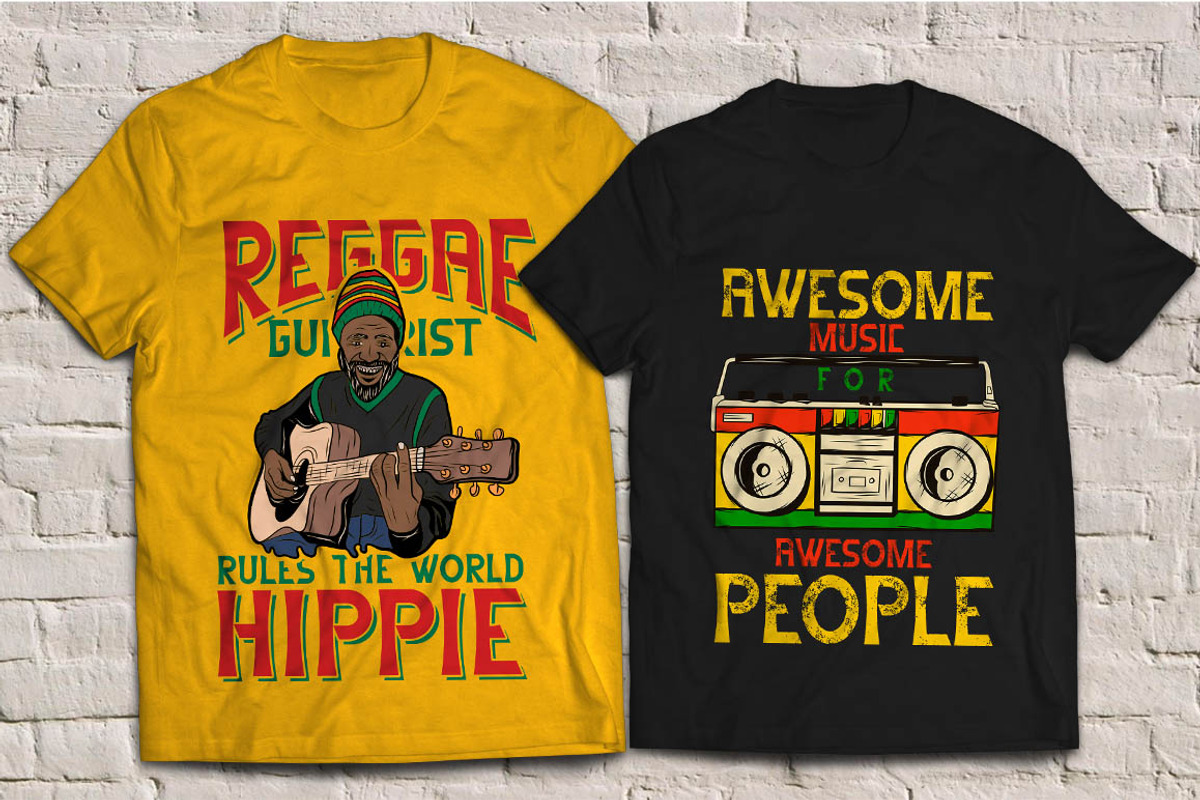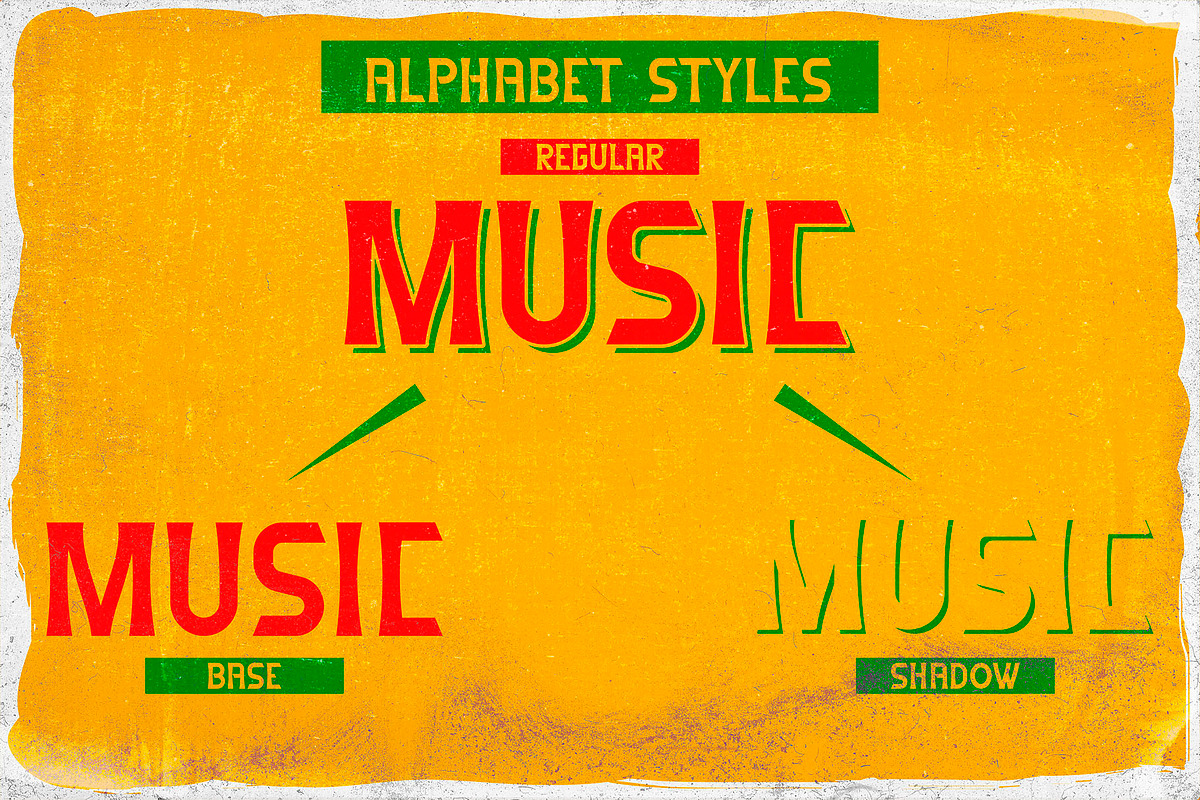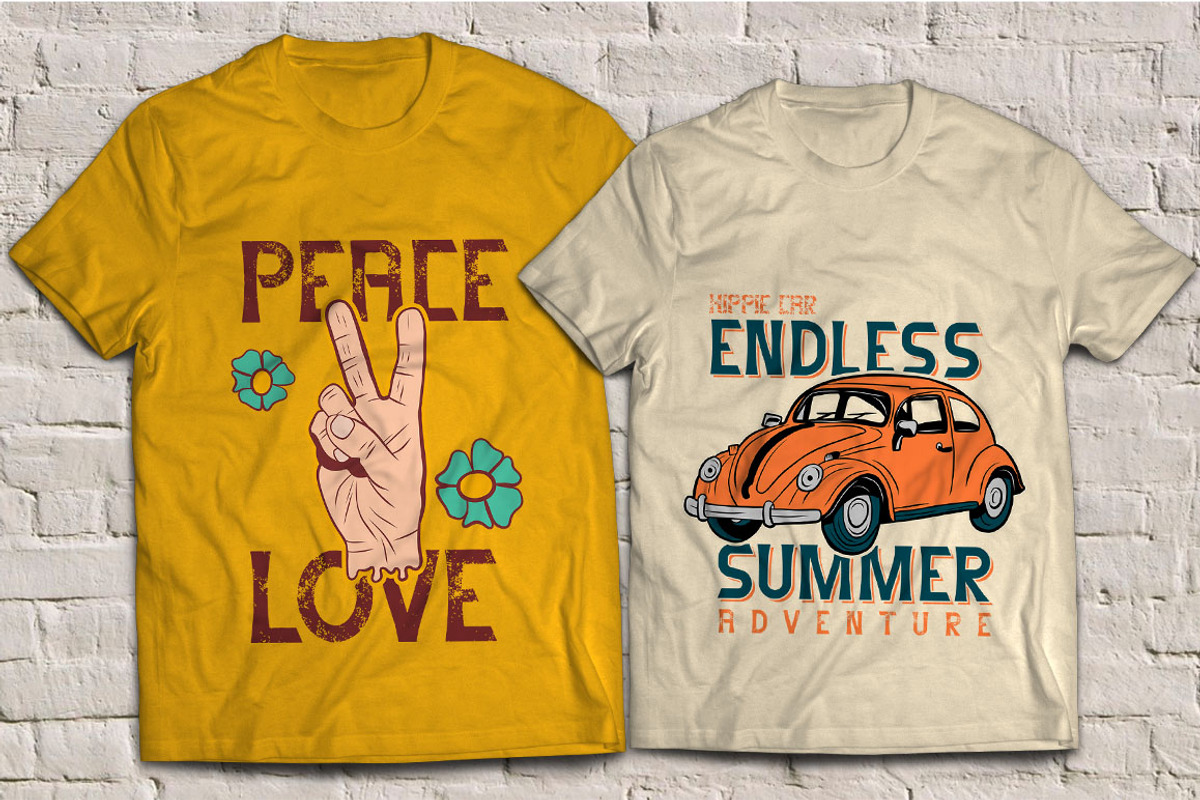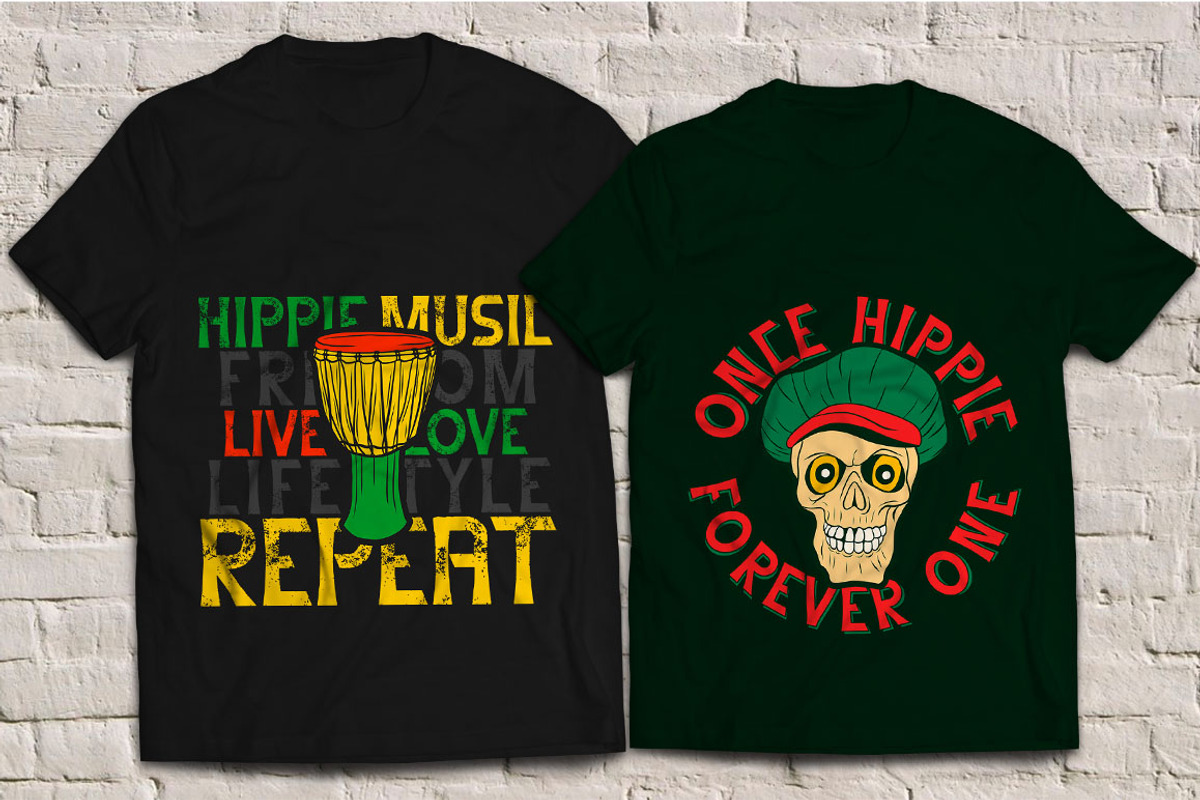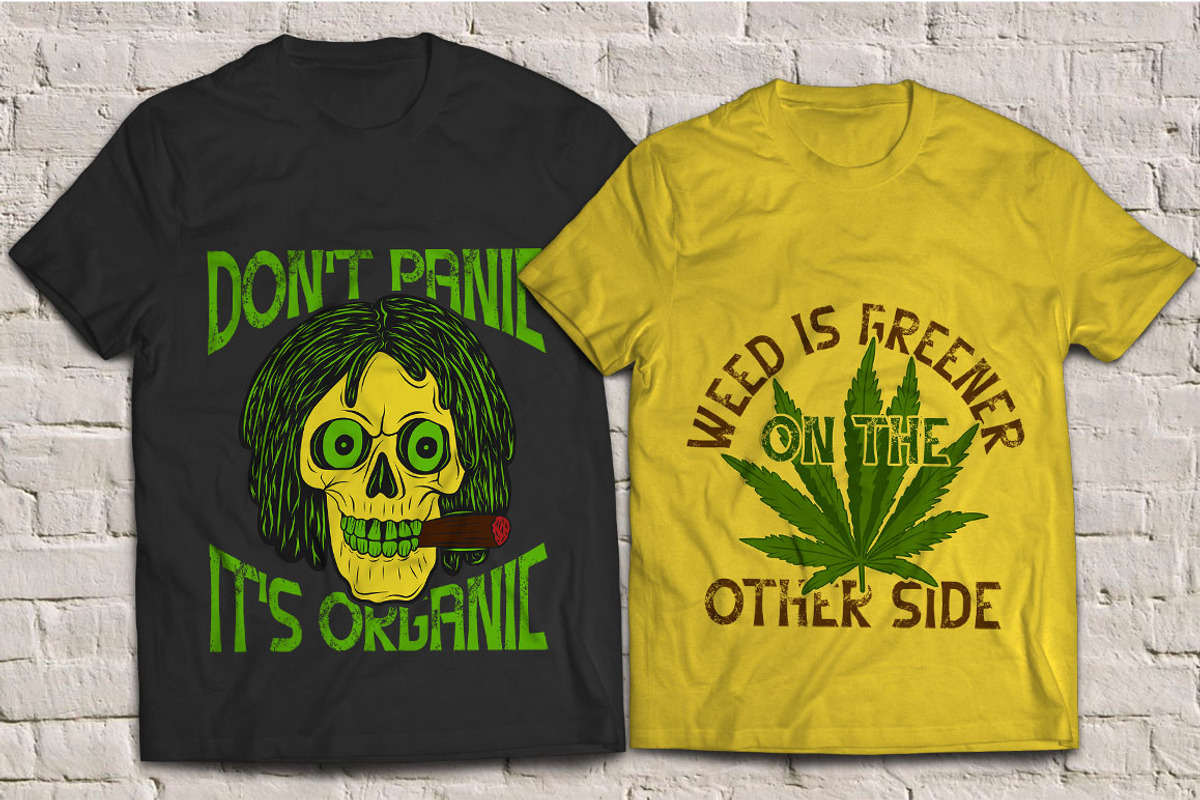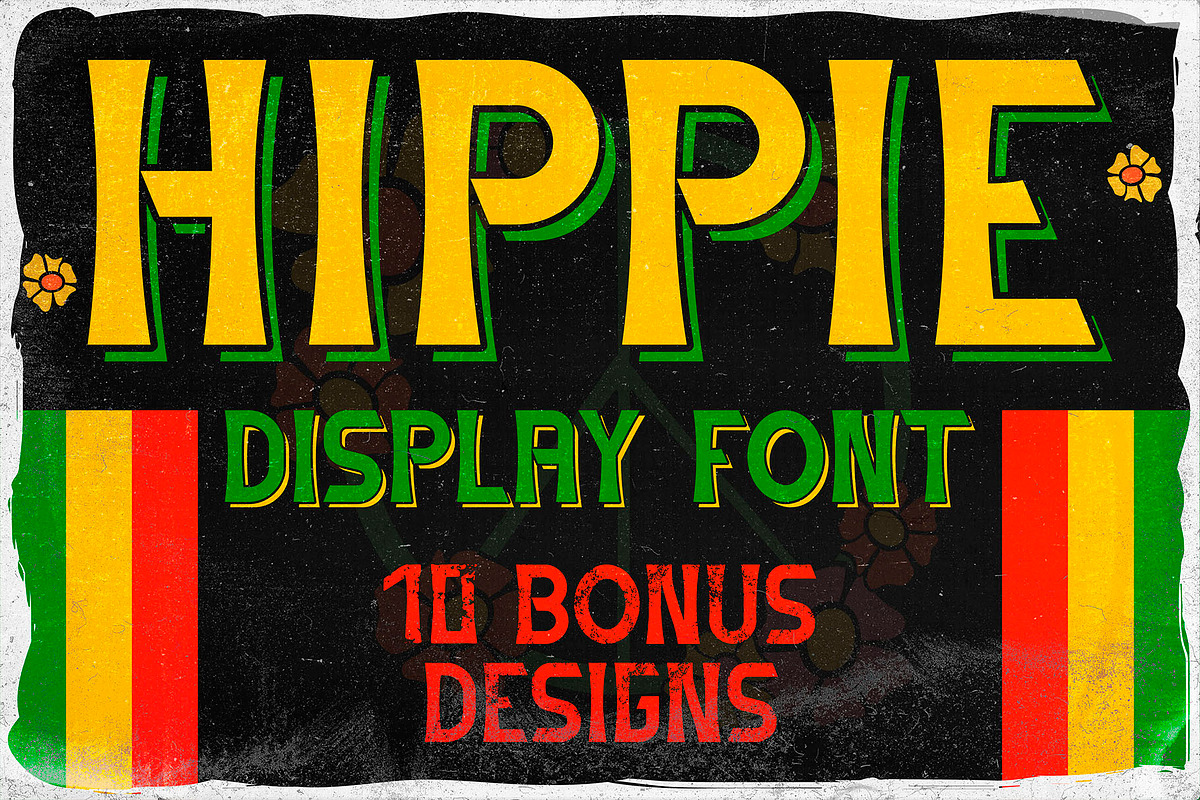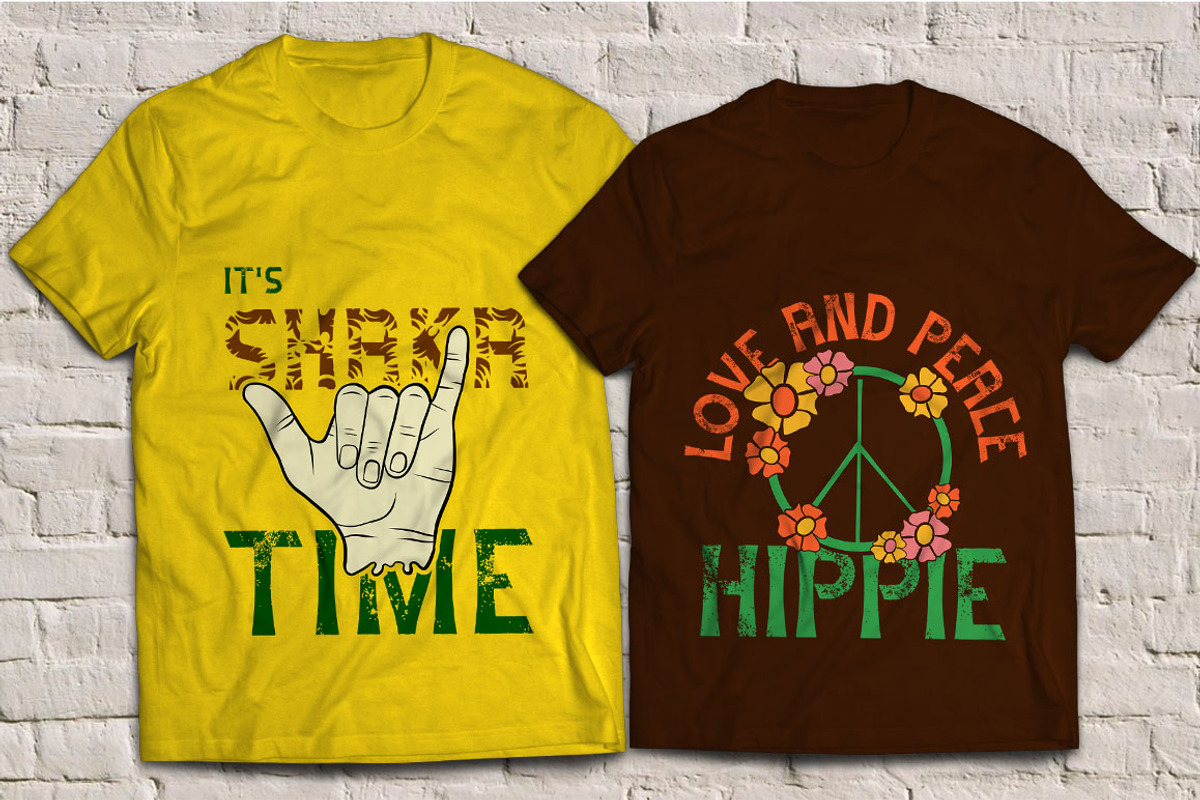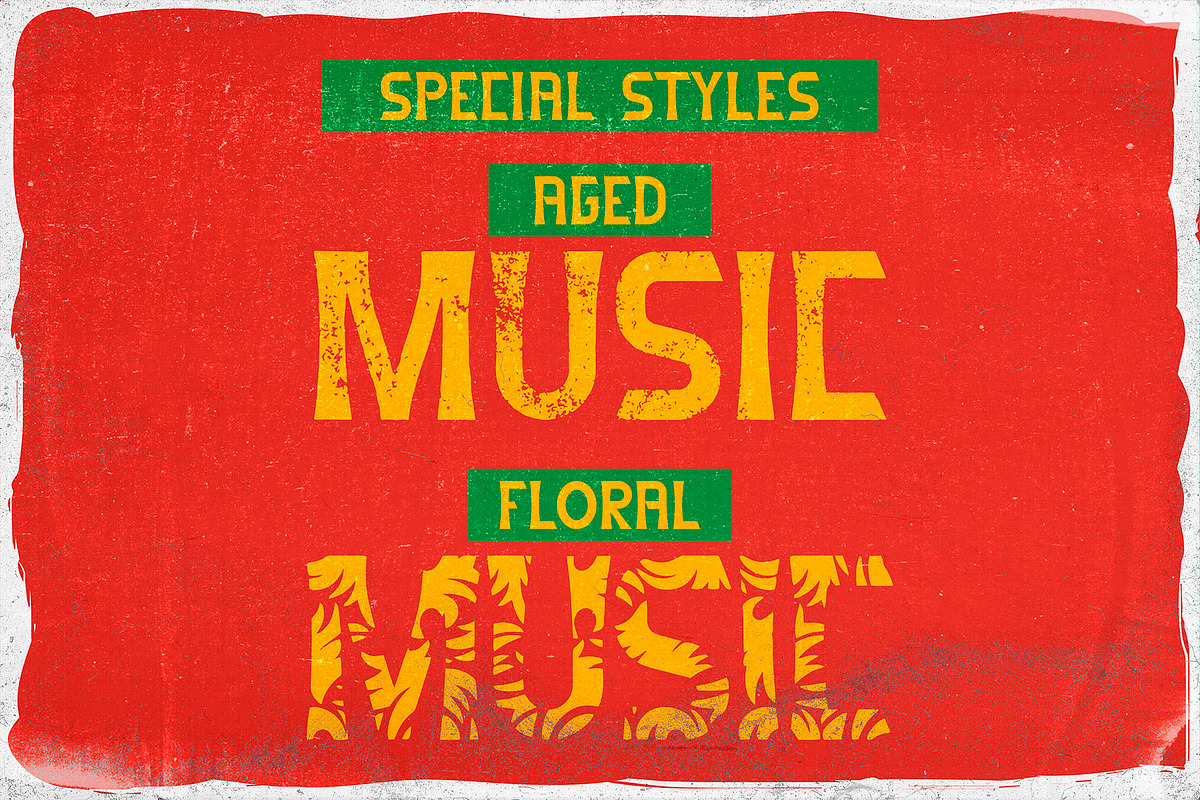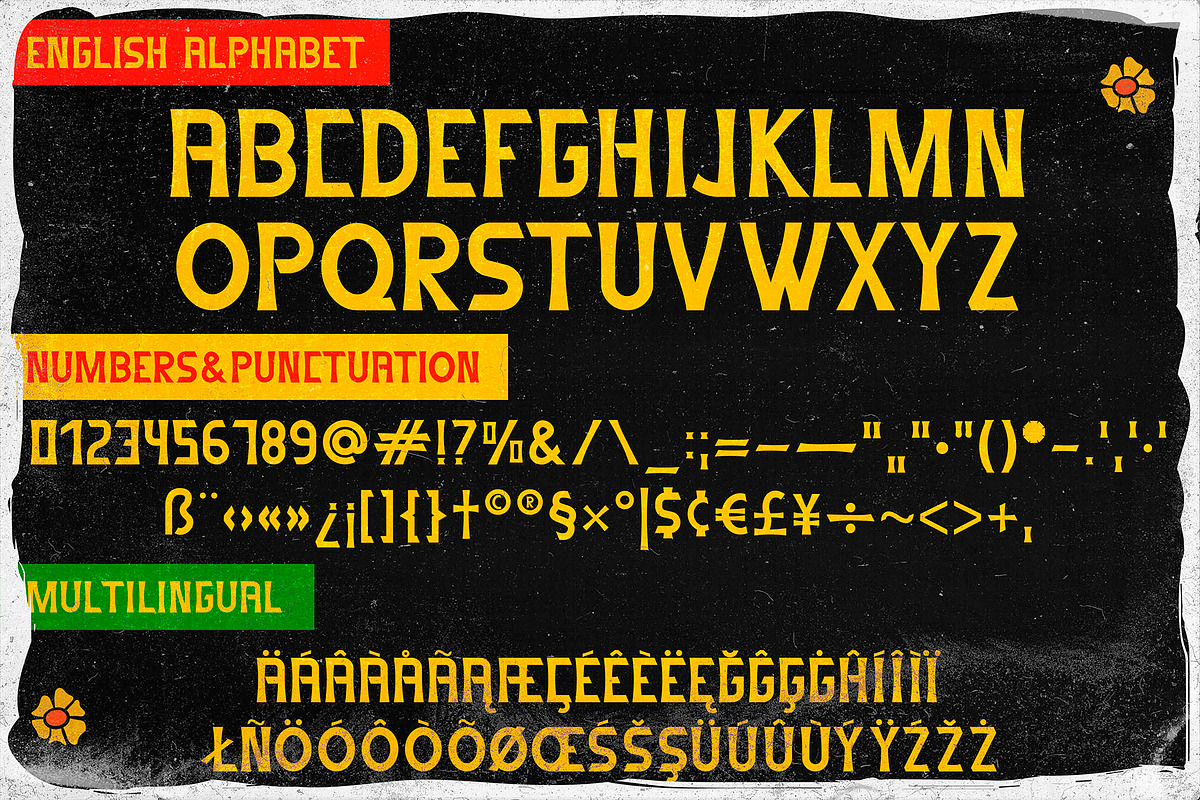
Hippie
Introducing my newest font called "Hippie". It was inspired by hippie culture and music. This font has a wide language support of multilingual characters (check out all available characters in previews). Plus, 10 bonus Mexican-style t-shirt designs. This font will look good on any vintage-styled designs like a poster, T-shirt, label, logo, etc.
- A lot of additional symbols and multilingual support.